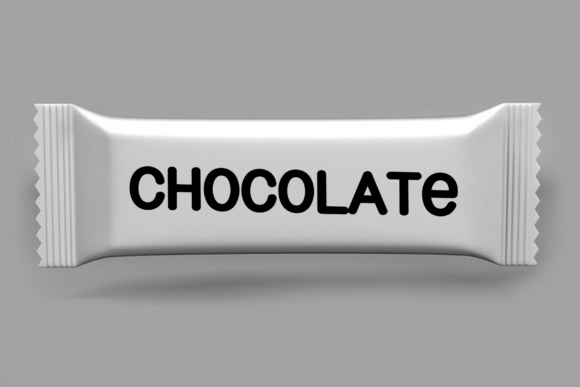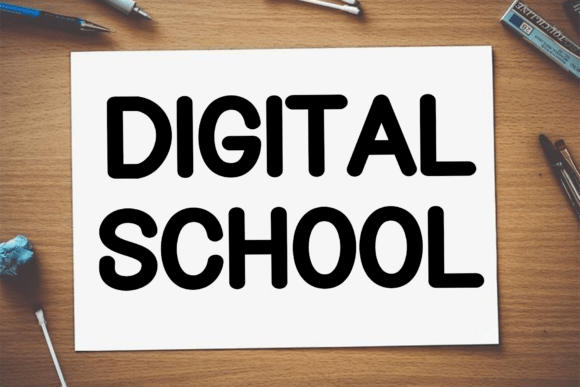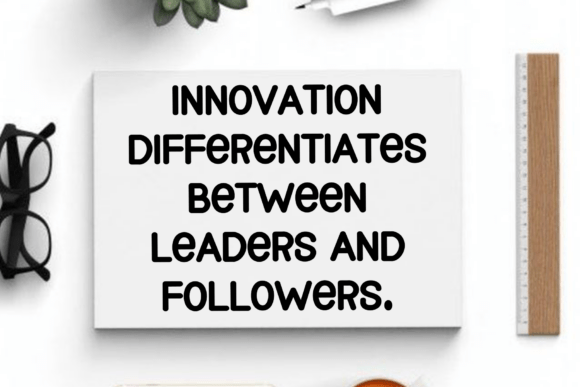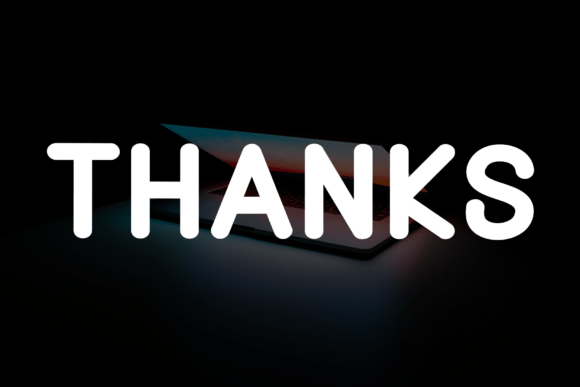
Introducing Digital Font: The Perfect Holiday Companion for Designers and Crafters
Are you looking for a font that embodies the joy and warmth of the holiday season? Look no further than Digital Font, a playful and cheerful handwritten display font that’s sure to bring a smile to everyone’s face. With its rounded strokes and casual, friendly style, Digital Font is the perfect choice for Christmas cards, festive invitations, kids’ projects, and seasonal branding.
The Charm of Digital Font
Digital Font is more than just a font – it’s an experience. Its whimsical and inviting style is designed to capture the magic of the holiday season, making it ideal for designers and crafters who want to add a touch of personality to their projects. Whether you’re creating a festive holiday ad, a Christmas card, or a fun kids’ project, Digital Font brings a lighthearted and magical touch to your typography.
Digital Font is specifically designed with holiday projects in mind. Its playful and cheerful style makes it perfect for:
• Christmas cards: Add a personal touch to your holiday cards with Digital Font’s whimsical and inviting style.
• Festive invitations: Create festive and fun invitations for holiday parties, gatherings, and events.
• Kids’ projects: Bring a touch of magic to kids’ projects, such as holiday crafts, coloring pages, and activity sheets.
• Seasonal branding: Add a playful and cheerful touch to your holiday branding, including logos, packaging, and advertising.
Why Choose Digital Font?
So why choose Digital Font over other fonts? Here are just a few reasons:
• Unique and playful style: Digital Font’s whimsical and inviting style is sure to stand out from the crowd.
• Easy to read: Despite its playful style, Digital Font is easy to read, making it perfect for body text and headlines.
• Versatile: Digital Font can be used for a wide range of projects, from holiday cards to seasonal branding.
• High-quality: Digital Font is a high-quality font that’s designed to deliver exceptional results.
Tips for Using Digital Font
Here are a few tips for using Digital Font in your projects:
• Use it with color: Digital Font looks amazing with bright, bold colors that match the holiday season.
• Experiment with sizes: Digital Font can be used at a range of sizes, from small body text to large headlines.
• Pair it with other fonts: Digital Font pairs well with other fonts, including serif and sans-serif fonts.
Whether you’re a designer, crafter, or simply someone who loves the holiday season, Digital Font is sure to delight. Its lighthearted and magical style makes it the perfect choice for anyone who wants to add a touch of personality to their holiday projects. So go ahead, get creative, and spread some holiday cheer with Digital Font!